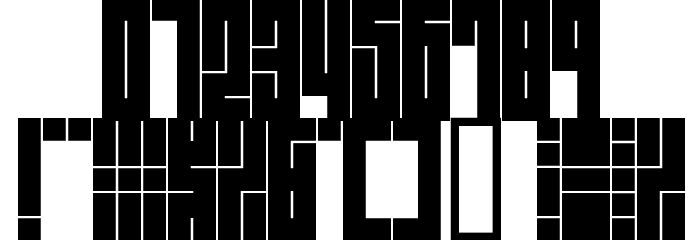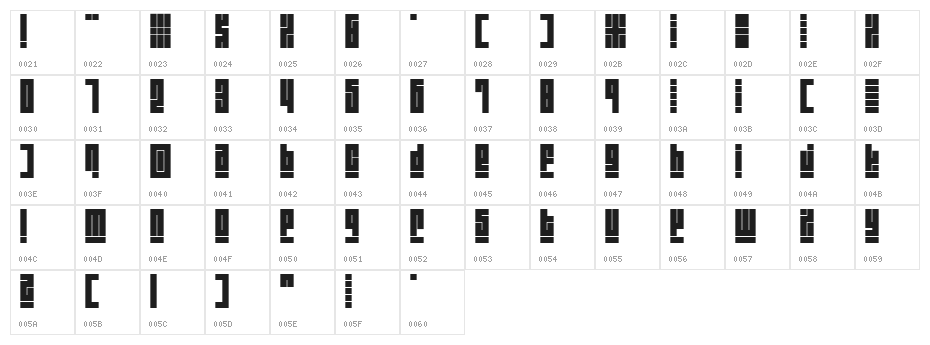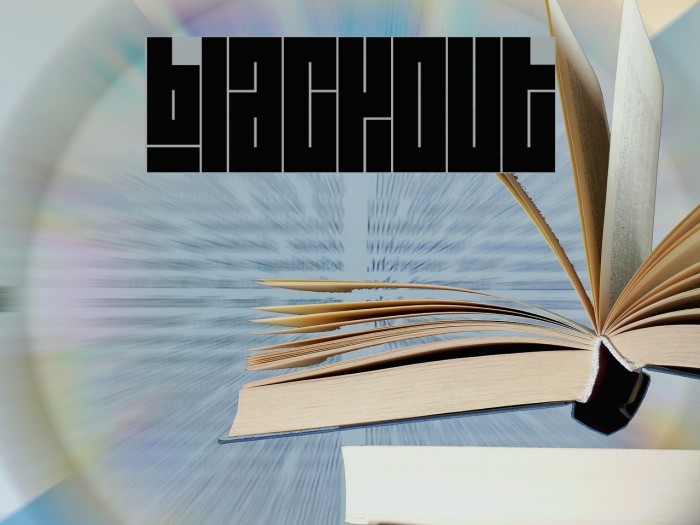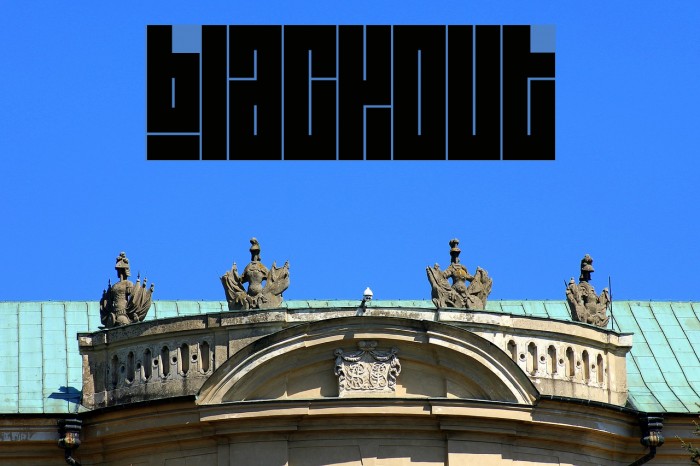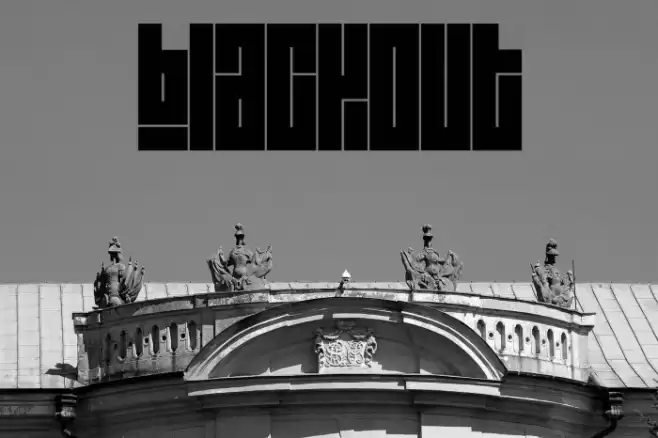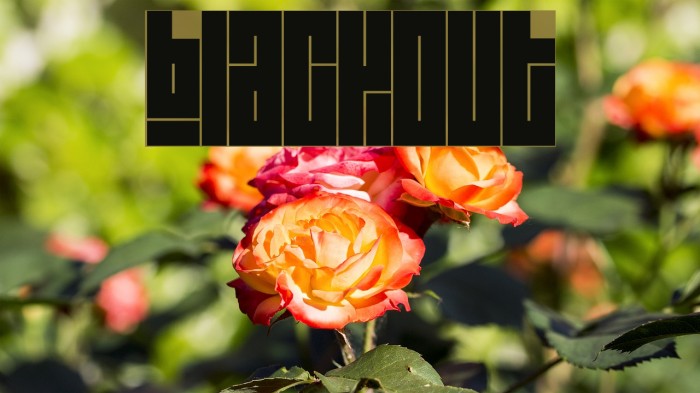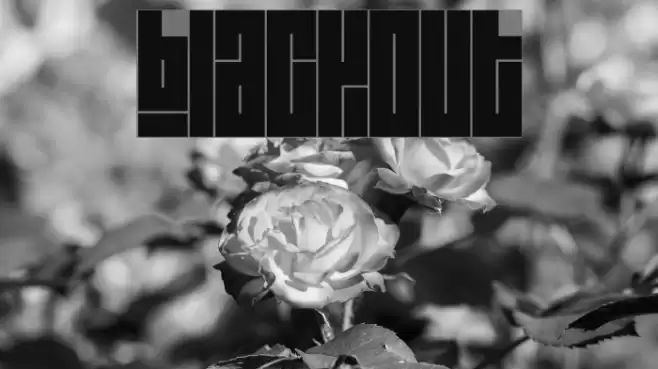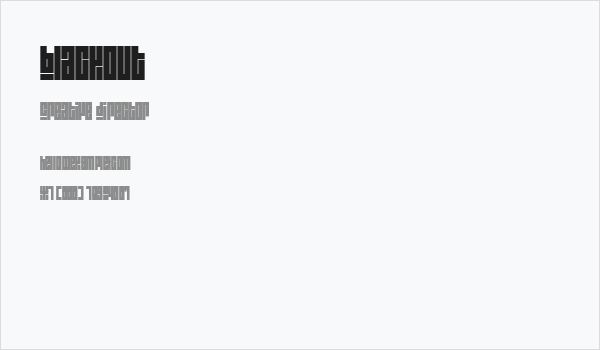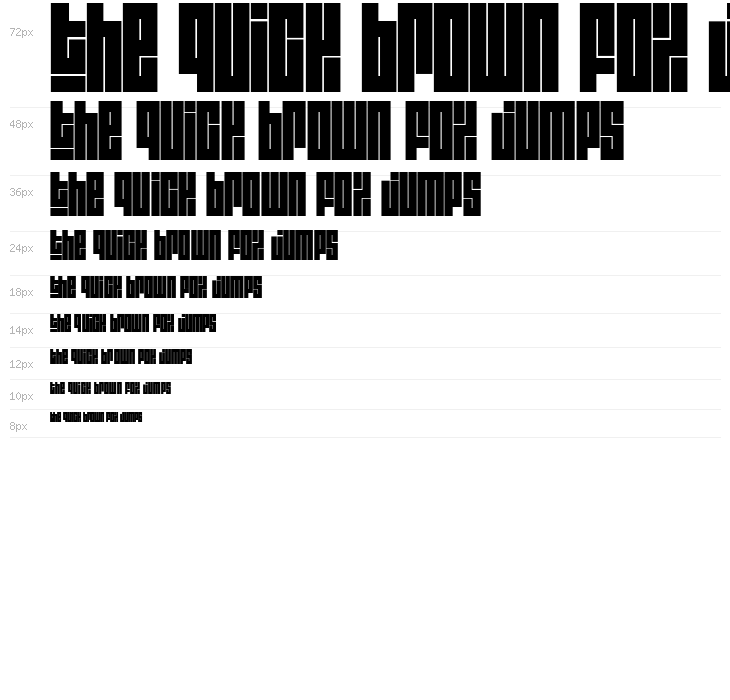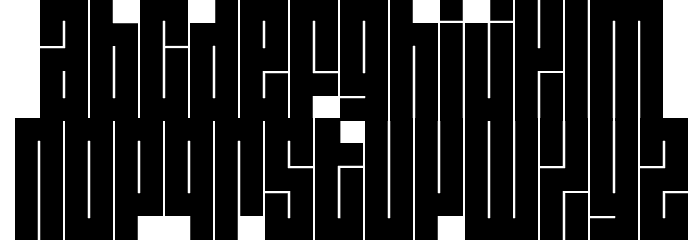
Blackout Font
Blackout Description
This font features a bold and blocky design with a strong geometric structure. Each character is formed with thick, uniform strokes, creating a striking and impactful appearance. The letters are tightly spaced, contributing to a cohesive and compact look. The font's high contrast between the solid black shapes and the negative space enhances its visual impact. Its modern and edgy style makes it suitable for projects that require a strong visual statement. The uppercase and lowercase letters maintain a consistent height, adding to the uniformity of the design. The numerals and special characters are crafted with the same boldness, ensuring a harmonious overall appearance.
| Proposed Projects | Ideal for posters, album covers, branding, and any project needing a bold visual statement. |